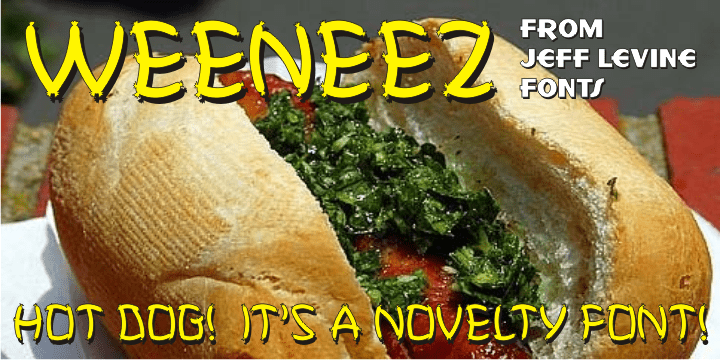
Weeneez
Weeneez JNL is an out-and-out novelty font made entirely of hot dogs. The font contains only the alphabet and numerals and a few other symbols including basic punctuation marks.
Weeneez JNL Regular by Jeff Levine Fonts